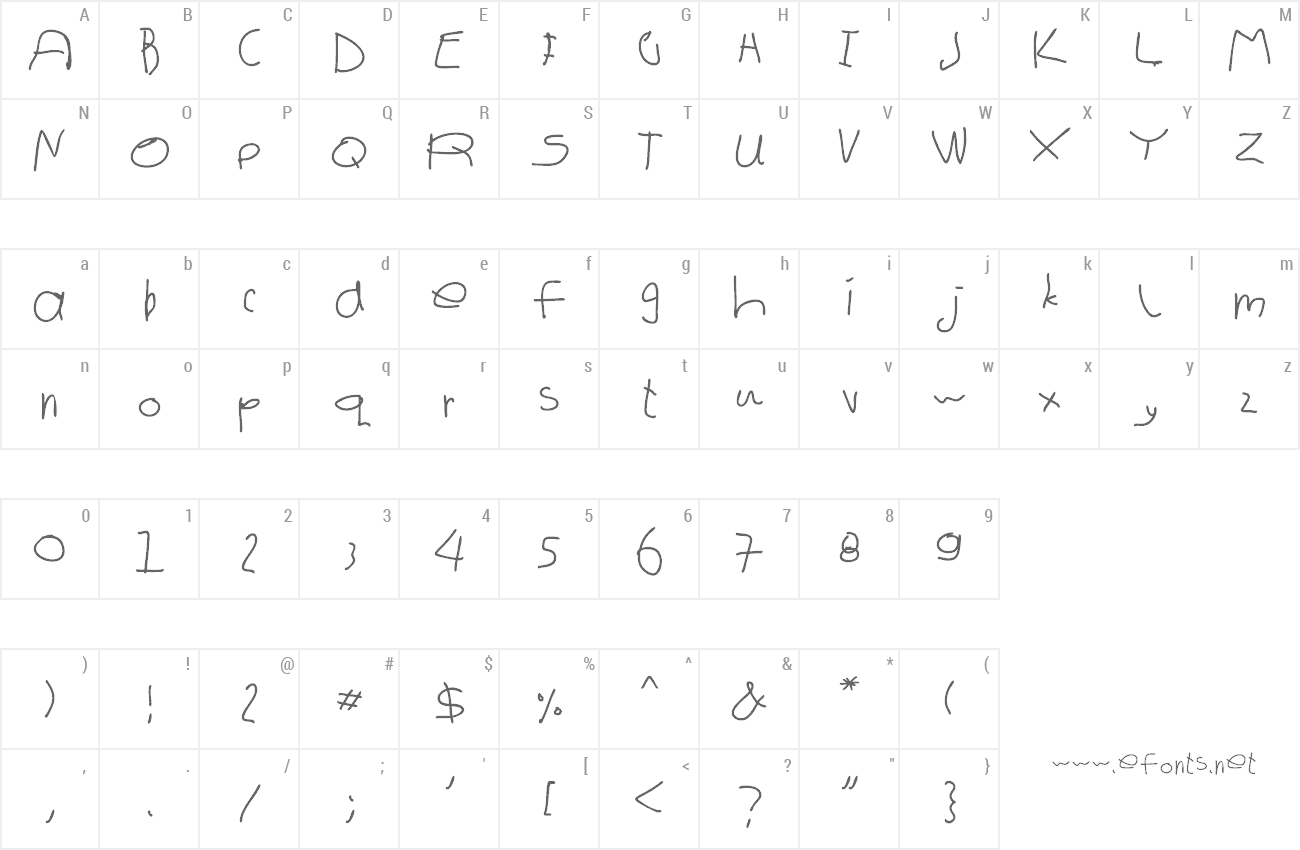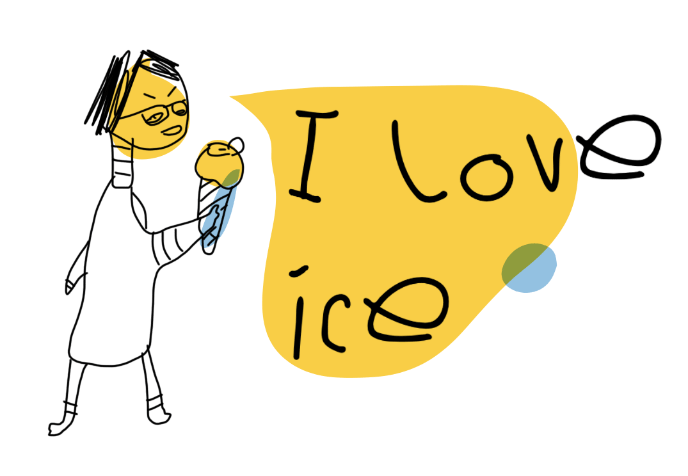
Preview and download First Grade Lili Font. Created by hati in Script Handwritten styles with 100% Free license.
This font is good for DISPLAY or headline purpose Its mimics the style of PRESCHOOLER hand writing This is a COMPLETELY FREE FONT. 100% free. no any fuzz. just free. You may use it for anything, any finny anything. (except distributing the font as is) But i have spend several days to make it, so DONATION is welcome :D You may find my other work at https://www.instagram.com/pigupigu.real/ https://www.shutterstock.com/g/maraga |